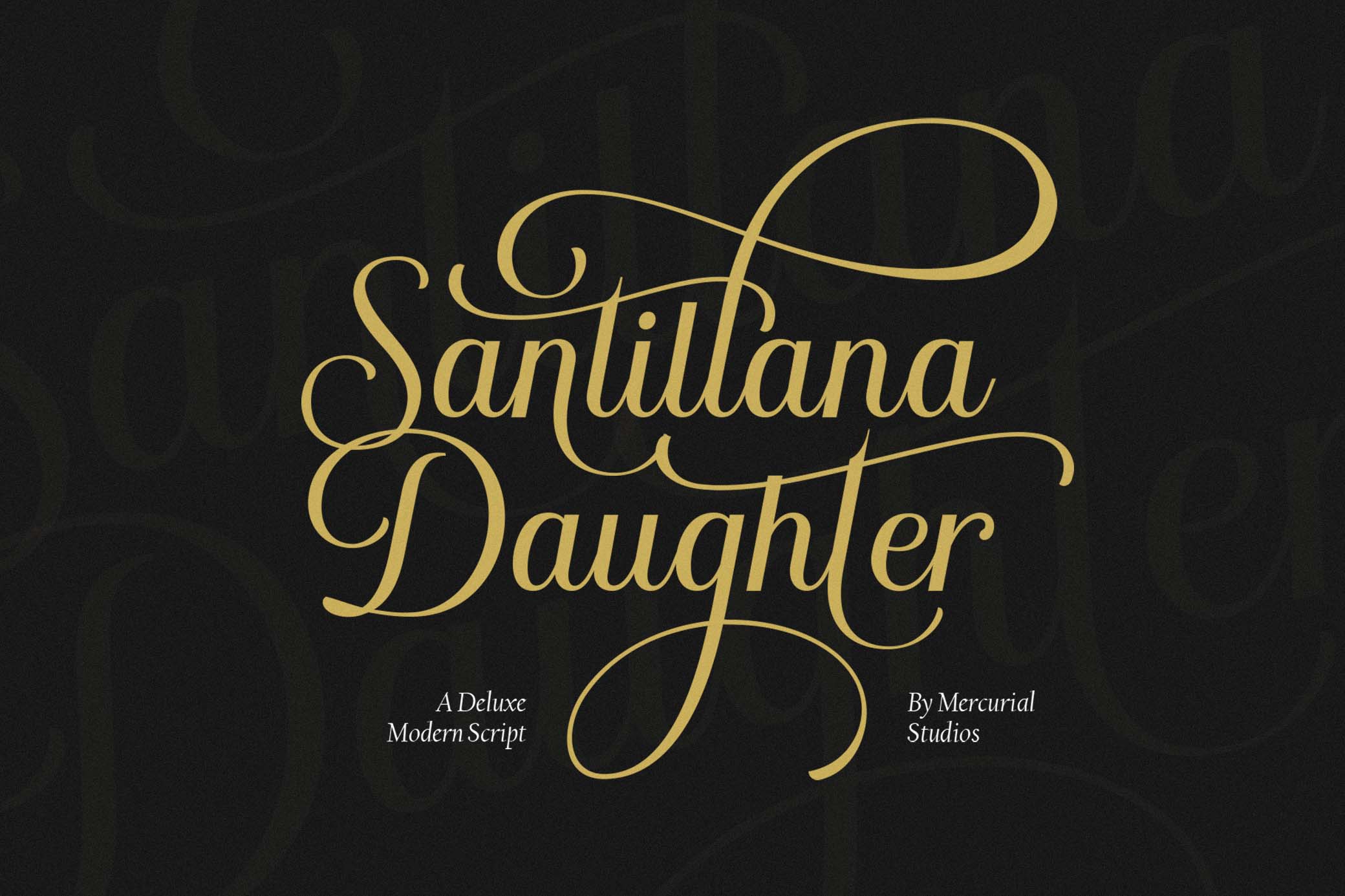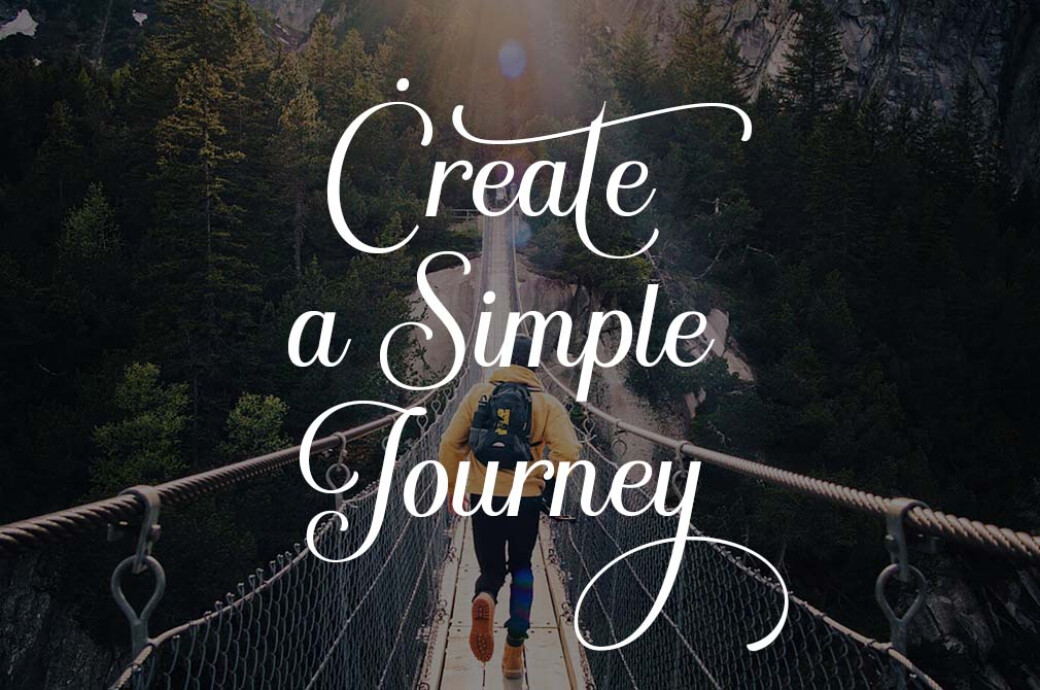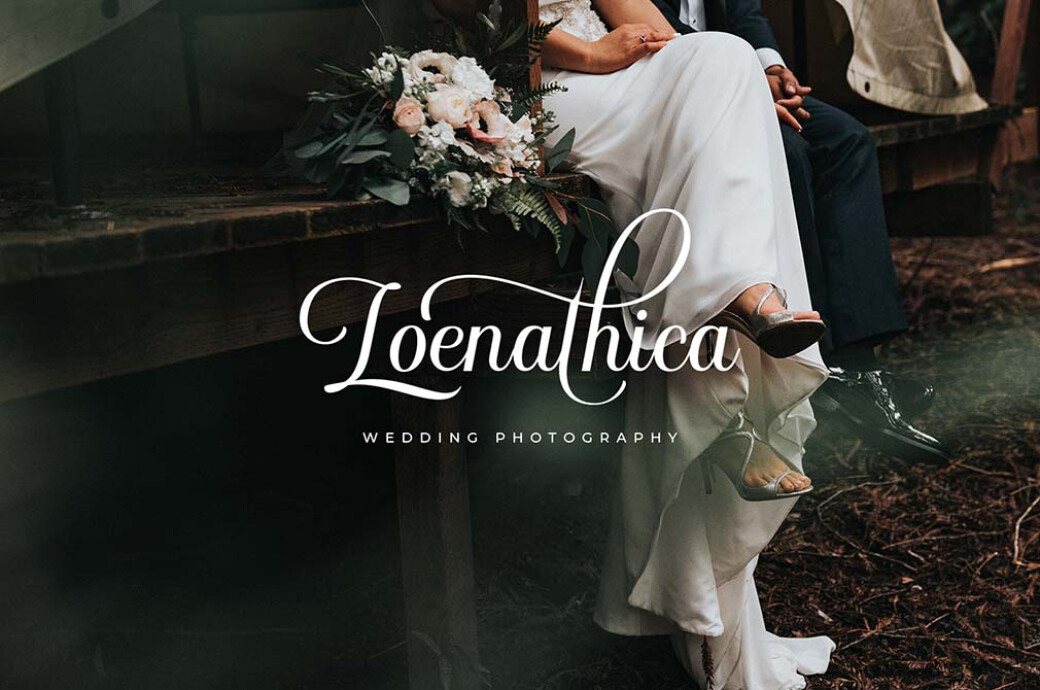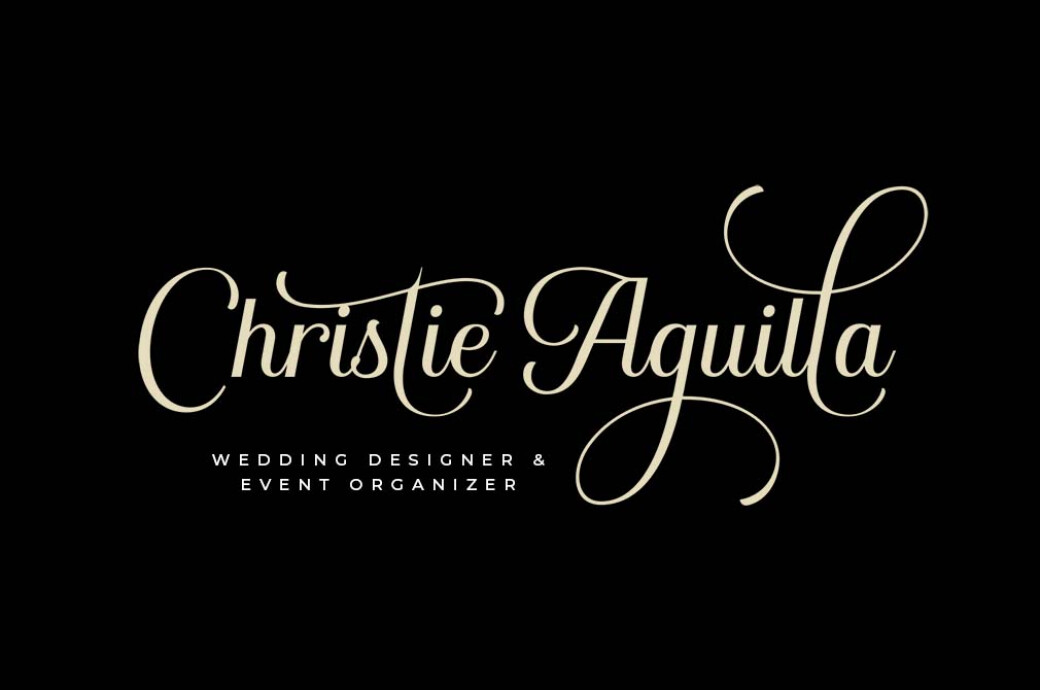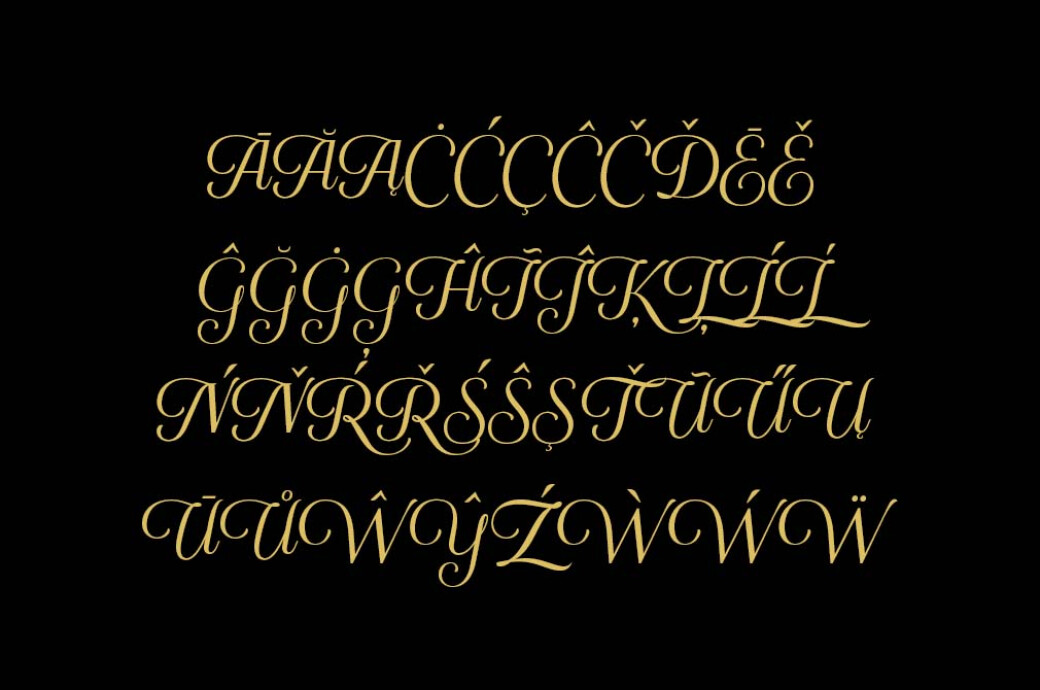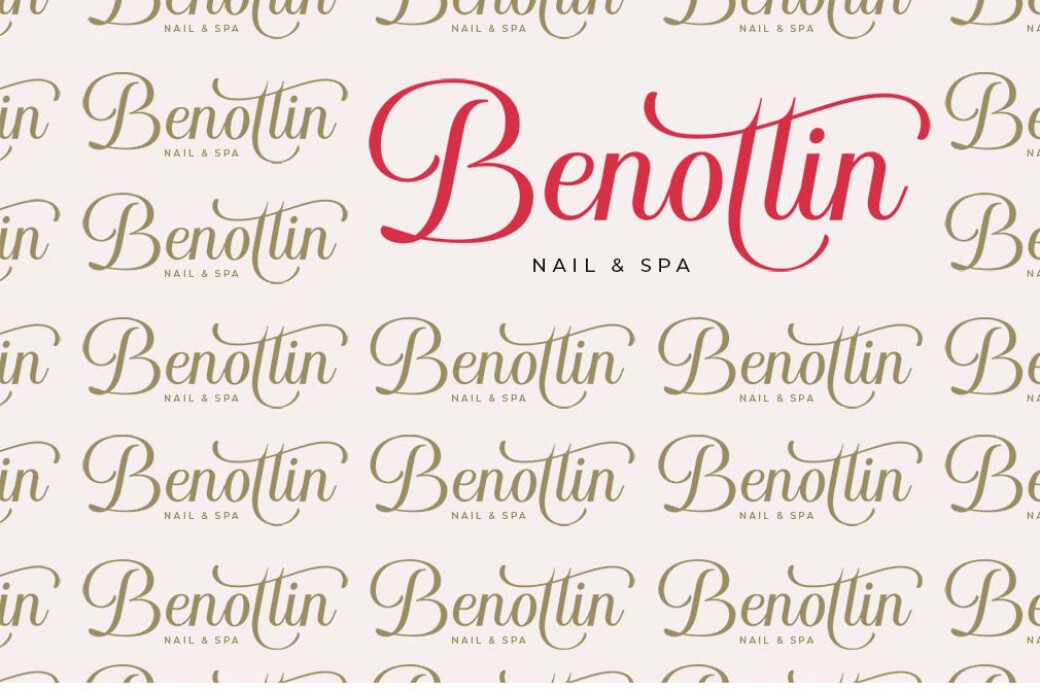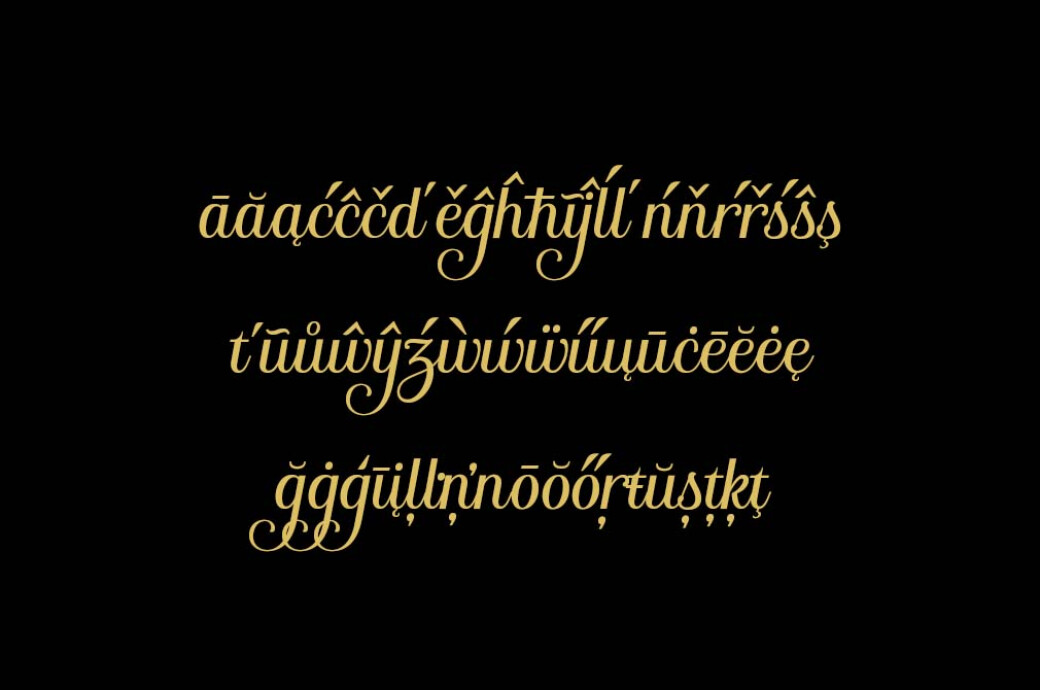
Santillana Daughter Calligraphy Font
Santillana Daughter is the fire on the paper and in your projects. It's the perfect realization of classic calligraphy made with a love for luxurious typefaces.The market is full of modern typography, and we're sure your toolbox is too! But do you have enough classic calligraphy typefaces that would look expensive? Santillana Daughter is the one, inspired by traditional English copperplate scripts and Early American handwriting. The features of this font are as remarkable as its look: uppercase & lowercase characters, multilingual support, symbols & punctuation. And a vast set of ligatures and alternates (standard ligatures, discretionary ligatures, stylistic alternates, and swashes).